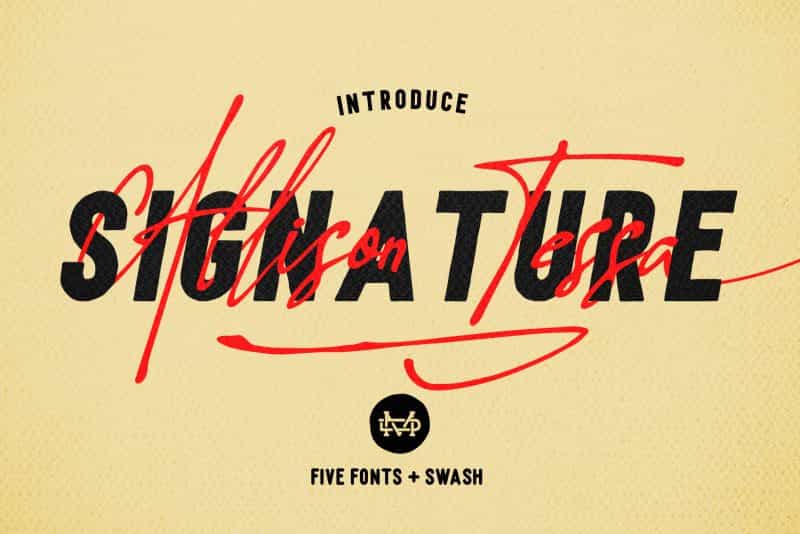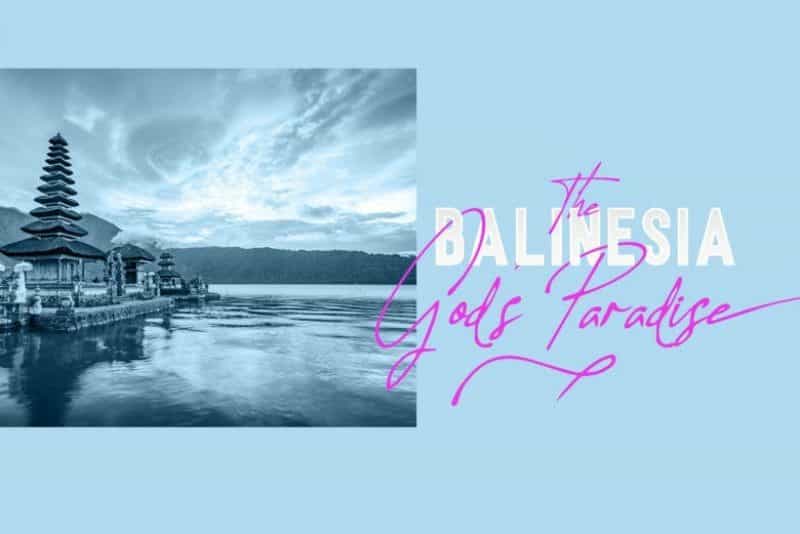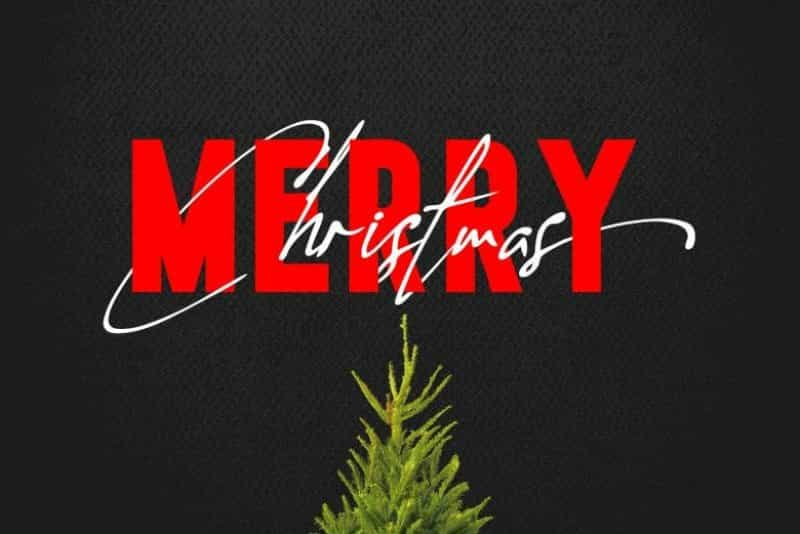
Allison Tessa is the sign of beauty and it has three variations: regular, rough and stamp. Allison Tessa is the best for poster design, book covers, merchandise, fashion campaigns, newsletters and other things.